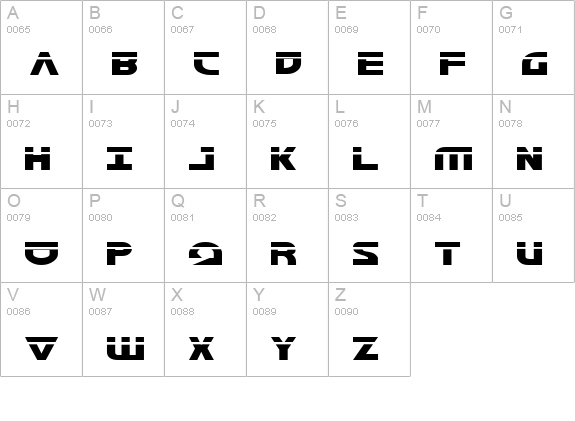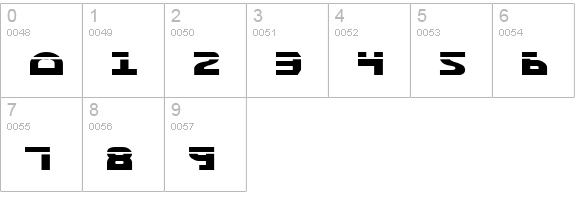
Morse NK Condensed Laser is a distinctive, condensed-width variant in the Morse typeface family \xE2\x80\x94 well suited to design and typography projects.
Morse NK Condensed Laser font is a sleek and modern typeface that is perfect for creating a bold and impactful visual presence. With its condensed style and sharp lines, this font exudes a sense of precision and efficiency, making it ideal for projects that require a contemporary and edgy look. Designed with a laser-focused attention to detail, Morse NK Condensed Laser font is versatile enough to be used in a variety of design applications, from branding and advertising to packaging and editorial design. Its clean and minimalist design ensures readability and legibility, even at smaller sizes. Best of all, Morse NK Condensed Laser font is available for free download at FontsMarket.com, allowing designers and creatives to access this high-quality typeface without any cost. Don't miss out on the opportunity to add this dynamic and stylish font to your design toolkit today!